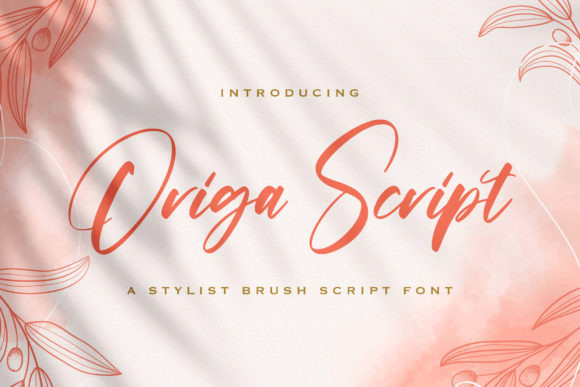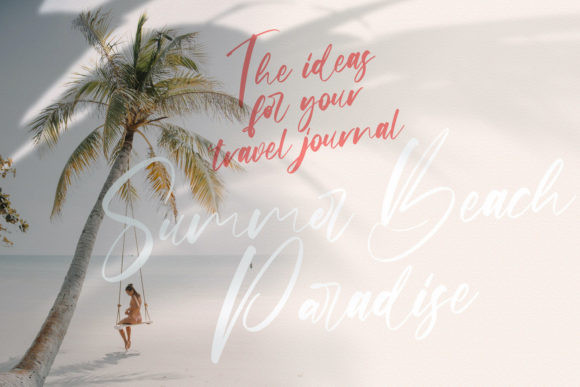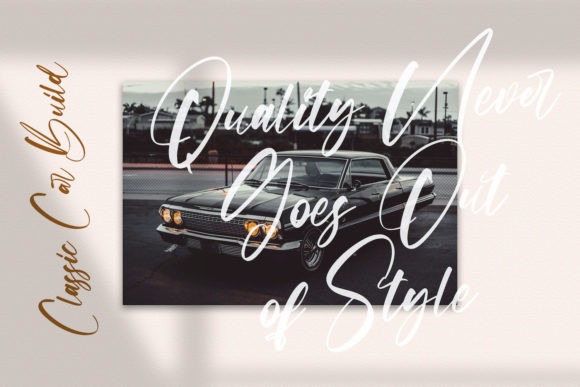
Origa Script Font
Origa Script is a relaxed, stylish and cursive script font. It will add a luxury spark to any design project that you wish to create! Fall in love with its incredibly versatile style and use it to create spectacular designs!